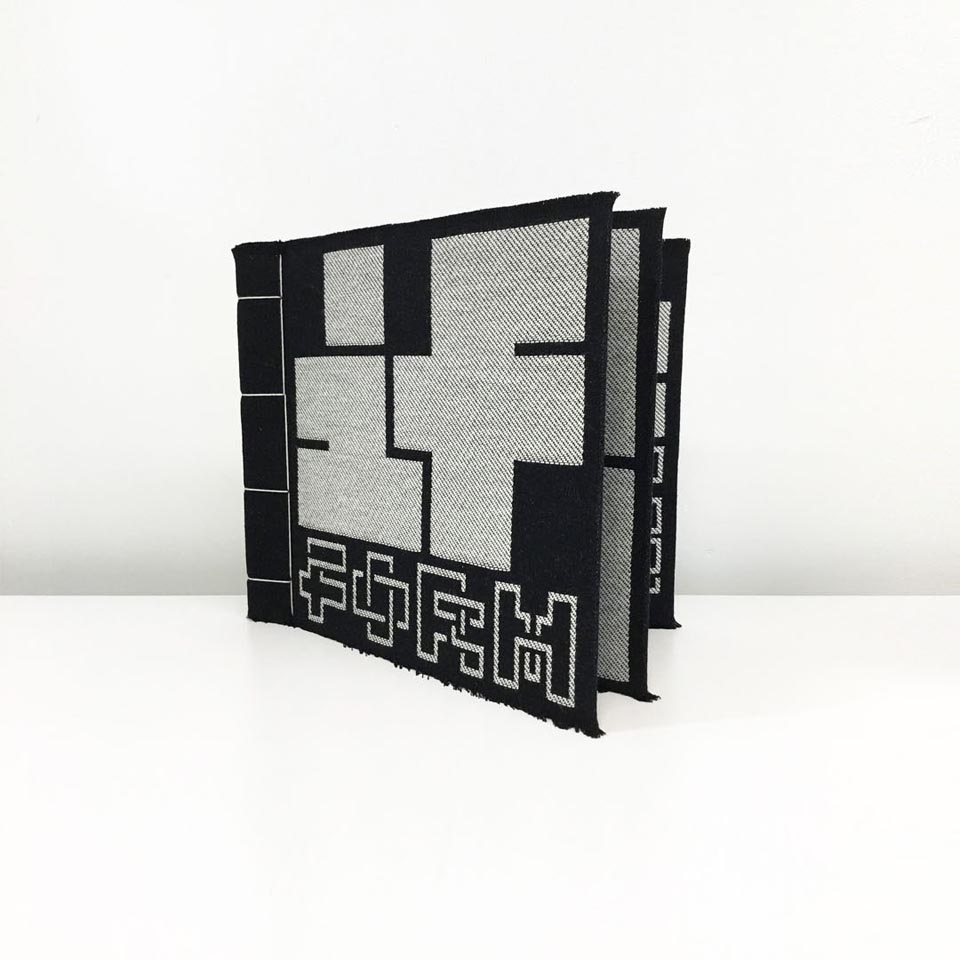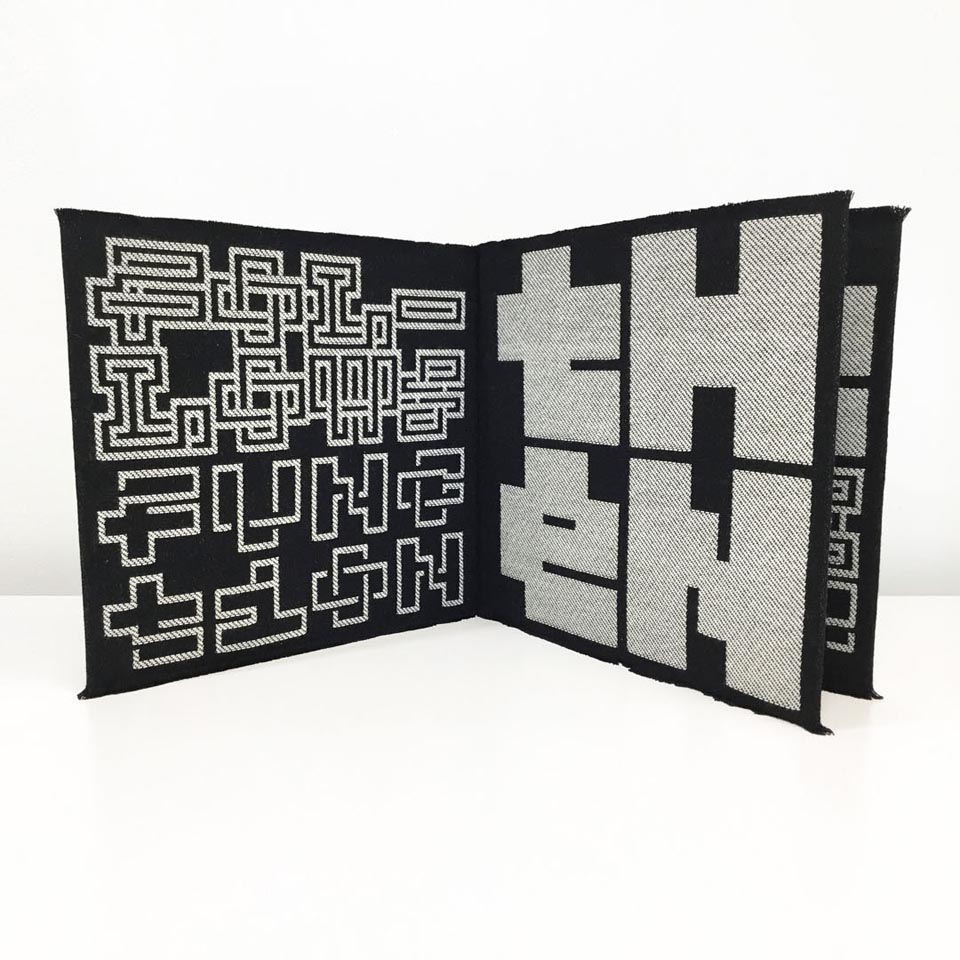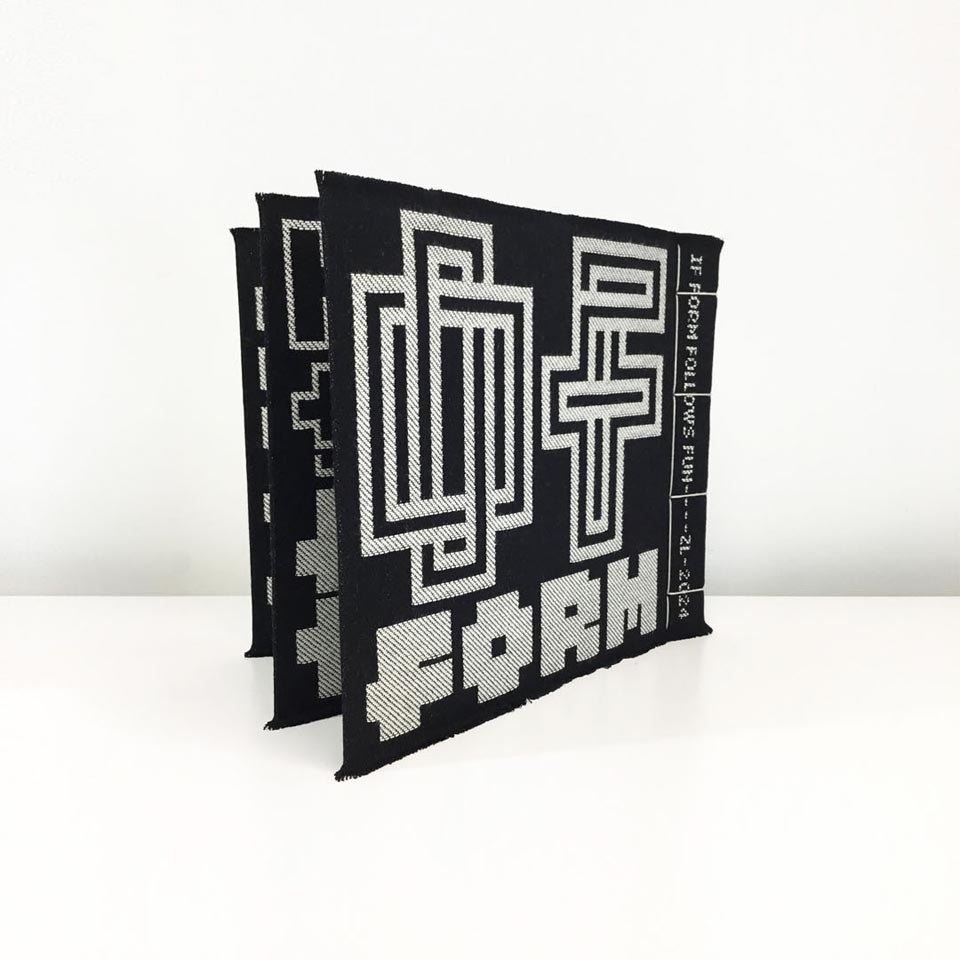
“If form...” Woven Book
If form follows function, then may the function be pure joy of form.
From a series of book objects plays with type as abstraction, exploring the boundary between letterforms as pattern versus their legibility.
Six page folio.